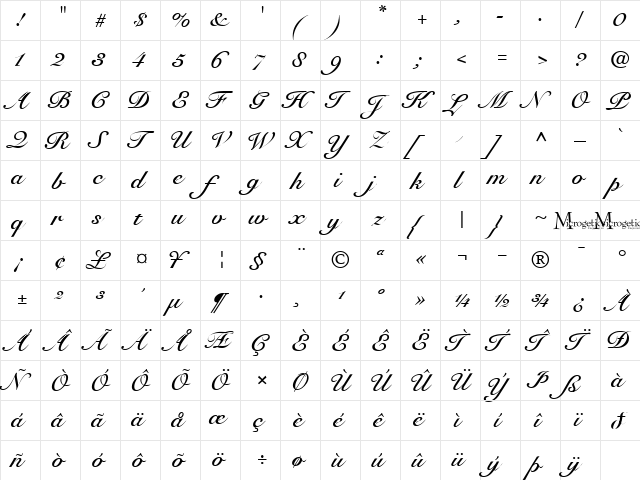
MC Impress Bold Font Preview
MC Impress Bold
MC Impress Bold Font Details
Design Context for MC Impress Typeface
MC Impress is a composed and adaptable typeface that performs quietly and consistently across a wide range of design contexts. Its bold stroke weight gives it real presence on the page.